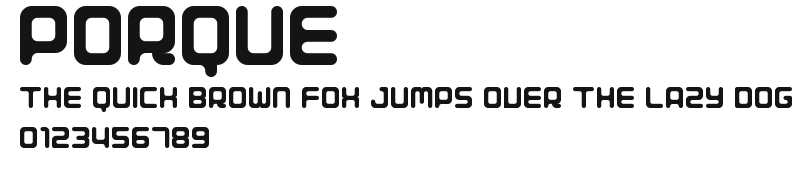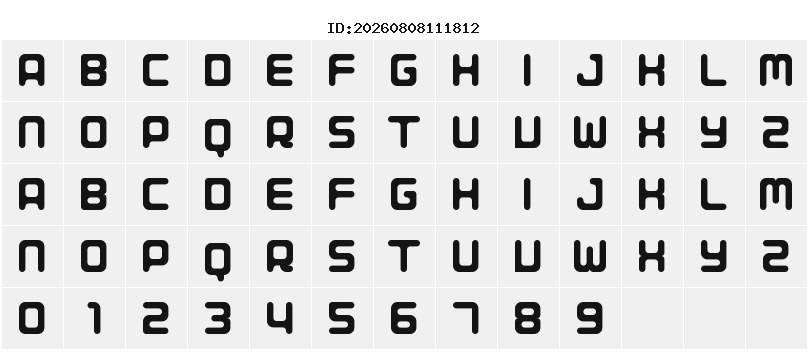
• Font Name: Porque
• Designer: André Felipe
• Description: “Porque” was built with FontStruct “Porque” is based on “Porque” by “André Felipe” (http://fontstruct.com/fontstructors/show/1379290/andfelcaslop)
About Porque.ttf
Porque.ttf is a modern, elegant sans-serif font designed for ultimate readability and visual harmony. Perfect for branding, headlines, web design, and print materials.